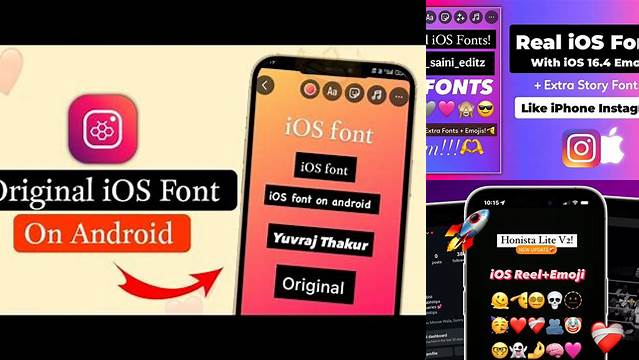
Hey guys! Ever wished you could get that sleek, stylish iOS look on your Android device? One of the most distinctive features of iOS is its typography, and many Android users admire the clean and modern aesthetic of the original iOS fonts. The good news is, you can actually get those fonts on your Android device! This comprehensive guide will walk you through everything you need to know about installing and using original iOS fonts on your Android device via APKs. We'll cover the benefits, the process, potential issues, and even some alternative options. So, if you're ready to give your Android device a fresh, iOS-inspired makeover, let's dive in!
Achieving the iOS aesthetic on your Android device begins with understanding the allure of original iOS fonts. These fonts, known for their clarity and modern design, can significantly transform the look and feel of your device's interface. By integrating these typefaces, you're not just changing the letters on your screen; you're adopting a design philosophy that emphasizes readability and elegance. The transition, made possible through APKs, opens up a realm of customization previously exclusive to iOS users. However, the process isn't without its considerations. Ensuring compatibility, understanding the legalities, and preparing for potential glitches are crucial steps in this journey. This guide serves as your roadmap, navigating you through each stage with detailed instructions and expert advice. From the initial download to the final installation, you'll learn how to safely and effectively bring the essence of iOS typography to your Android experience, offering a fresh perspective on how you interact with your device every day. So, get ready to embark on this transformation, and let's make your Android device a true reflection of your style.
Navigating the world of Android customization can feel like stepping into a vast and exciting playground. The ability to tweak almost every aspect of your device, from the smallest icon to the overall theme, is a testament to Android's open-source nature. Among these customizations, changing the system fonts holds a special appeal. It's a subtle yet powerful way to personalize your device, reflecting your taste and preferences in a way that goes beyond the surface. The allure of original iOS fonts lies in their reputation for clarity and sophistication. Fonts like San Francisco, the default system font in iOS, are designed to be highly readable across various screen sizes and resolutions, making them a popular choice for those seeking a visually pleasing and functional typeface. The process of installing these fonts on Android, often involving APK files, requires a careful approach. It's essential to understand the risks involved, such as potential compatibility issues or security vulnerabilities, and to take the necessary precautions to safeguard your device. This comprehensive guide not only provides step-by-step instructions but also emphasizes the importance of informed decision-making, ensuring that your font customization journey is both enjoyable and safe. So, let's delve deeper into the world of Android fonts and discover how you can bring the elegance of iOS typography to your beloved device.
Before diving into the technical aspects, it’s important to understand why iOS fonts are so sought after. The clean, minimalist design of iOS has always been a major draw for users, and the fonts play a significant role in this aesthetic. The primary font used in iOS, San Francisco, is renowned for its readability and modern look. It's designed to be clear and legible across different screen sizes and resolutions, making it a favorite among designers and users alike. This clarity and elegance are what many Android users seek to replicate on their devices. By replacing the default Android fonts with iOS fonts, you can instantly give your phone or tablet a more polished and sophisticated appearance. This transformation is more than just a cosmetic change; it's about enhancing the overall user experience by making text easier to read and more visually appealing. Moreover, for those who switch between iOS and Android devices, having the same fonts can create a sense of familiarity and consistency, making the transition smoother. So, whether you're a design enthusiast, a typography aficionado, or simply someone who appreciates a clean and modern look, installing iOS fonts on your Android device can be a worthwhile endeavor. Let’s explore how you can make this happen while ensuring the process is safe and effective.
Why Use Original iOS Fonts on Android?
So, why bother with all this? Well, there are several compelling reasons to want original iOS fonts on your Android device. First and foremost, it's about aesthetics. The iOS fonts, particularly San Francisco, offer a clean and modern look that many find visually appealing. They can make your device feel more polished and up-to-date. Secondly, readability is a major factor. iOS fonts are designed to be highly legible, which can improve your overall user experience. If you spend a lot of time reading on your phone or tablet, switching to iOS fonts can reduce eye strain and make the text easier to digest. Lastly, it's about personalization. Android is all about customization, and changing your fonts is a great way to make your device truly your own. It's a simple yet effective way to stand out from the crowd and express your personal style.
The allure of iOS fonts on Android extends beyond mere aesthetics; it's a blend of design preference, readability enhancement, and personalization freedom. Imagine your Android device, traditionally sporting its own unique font style, suddenly adopting the sleek and modern typeface of iOS. The transformation is often striking, lending a touch of sophistication and clarity that can significantly improve the visual experience. This isn't just about making your phone look different; it's about making it look better, at least according to the tastes of those who appreciate the iOS design language. The clean lines and balanced letterforms of fonts like San Francisco are designed for optimal readability, reducing eye strain and making long periods of screen time more comfortable. This is particularly beneficial for users who frequently read articles, ebooks, or documents on their devices. Moreover, in a world where personalization is key, the ability to change fonts is a powerful tool. It allows you to customize your device in a way that reflects your individual style and preferences, setting you apart from the generic Android experience. So, if you're looking to inject a dose of iOS elegance into your Android ecosystem, exploring the possibility of installing original iOS fonts is a step worth considering.
Consider the visual impact of fonts on your daily interactions with your Android device. Every text message, email, and social media post is rendered in a specific typeface, and this choice of font subtly shapes your perception of the content. The elegance and clarity of iOS fonts, particularly the San Francisco font family, are designed to enhance this visual experience. These fonts are meticulously crafted to ensure legibility across various screen sizes and resolutions, making them a popular choice for users who prioritize readability. Imagine reading a lengthy article or browsing through a text-heavy website; the clean lines and consistent spacing of iOS fonts can significantly reduce eye strain, allowing for a more comfortable and enjoyable reading experience. Beyond functionality, the aesthetic appeal of these fonts contributes to the overall sophistication of your device's interface. Switching to iOS fonts can give your Android phone or tablet a polished, modern look, aligning it with the design sensibilities of the iOS ecosystem. This is particularly appealing to users who appreciate minimalist design and seek a consistent visual experience across their devices. Ultimately, the decision to use original iOS fonts on Android is a personal one, driven by a desire for improved readability, enhanced aesthetics, and a touch of individual flair. It's about transforming your device into a true reflection of your style and preferences.
Beyond the practical benefits, using original iOS fonts on your Android device is a statement of personal style. In a world where customization options are abundant, choosing the right font can be a subtle yet impactful way to express your individuality. Think of it as selecting the perfect frame for a piece of art; the font you choose frames the content on your screen, influencing how it's perceived. The clean, contemporary aesthetic of iOS fonts resonates with many users who appreciate minimalist design principles. By adopting these fonts, you're not just changing the way your device looks; you're aligning yourself with a design philosophy that emphasizes clarity, elegance, and functionality. This can be particularly appealing to professionals, creatives, and anyone who values a polished and sophisticated look. Moreover, the act of customizing your device can be a form of self-expression, allowing you to create a digital environment that feels uniquely yours. The ability to tailor your phone or tablet to your specific tastes is a hallmark of the Android ecosystem, and font customization is a powerful tool in this process. So, whether you're drawn to the aesthetic appeal of iOS fonts, their readability benefits, or the opportunity to personalize your device, the decision to make the switch is a reflection of your individual preferences and style.